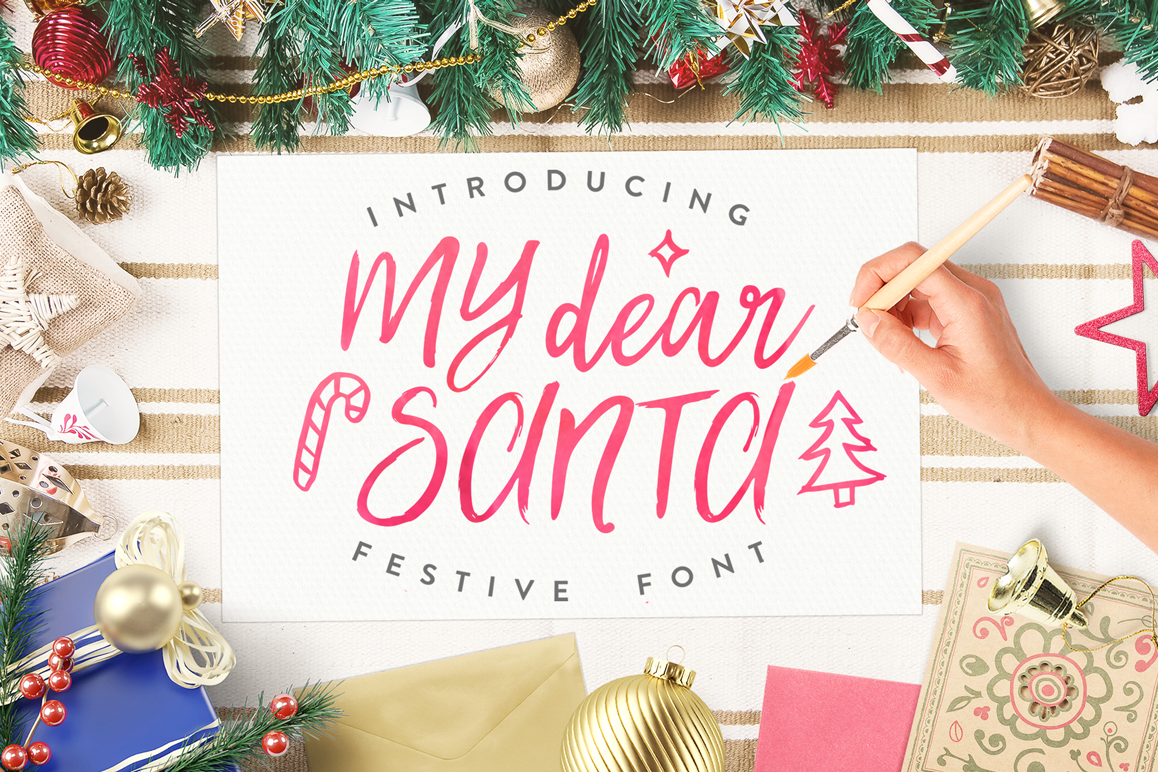
Best Christmas Font BIG UPDATE
Update 26.09.2018: added Multilingual support and new styles of the font. Enjoy it! ;)
Crafted with love, magical font My Dear Santa - a hand painted typeface, created specially for the Christmas Spirit. With this script you can do so much fun! You can write your own letter to Santa! Isn't that awesome?! Also, this font is perfect for invitations, cards, and gift DIY projects this holiday season! This font can really helps you to design that look of truly hand-drawn and also festive touch to any of your typographic projects.
My Dear Santa typeface (Regular, Slanted, Upright and Extras) comes with upper and lowercase characters, set of numerals and punctuation as well as 60 beautiful hand drawn holiday icons, which help you to create more fun projects!